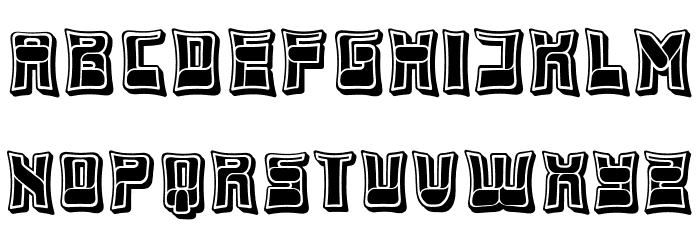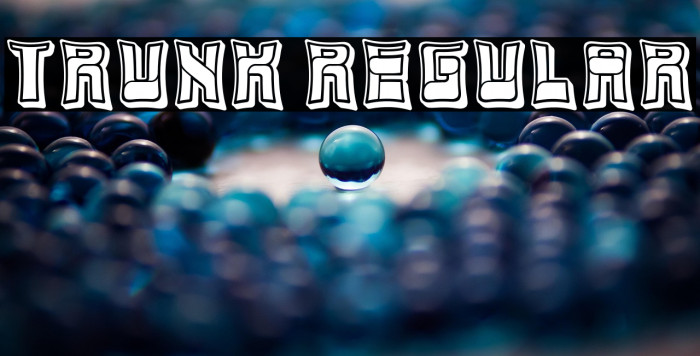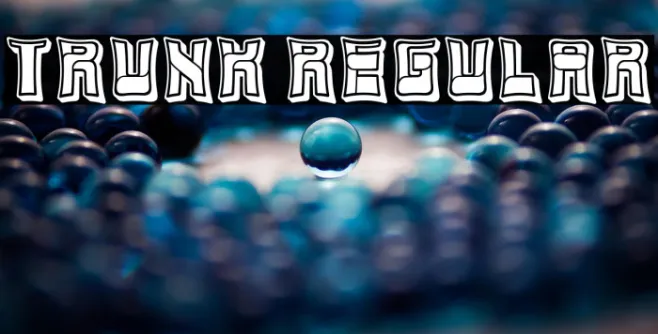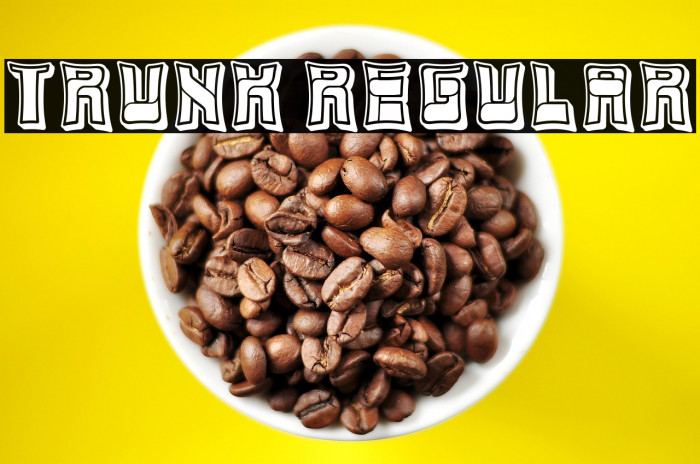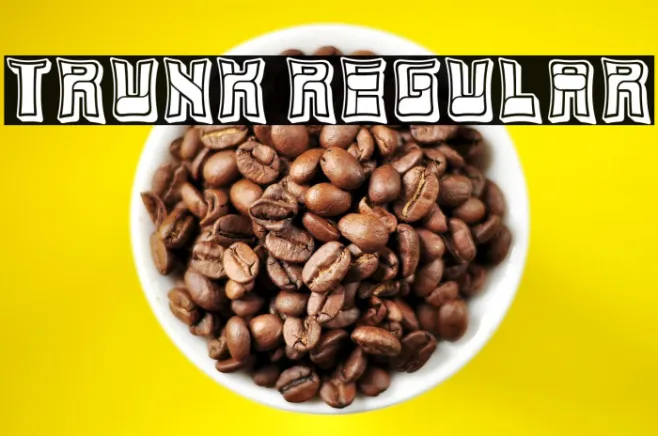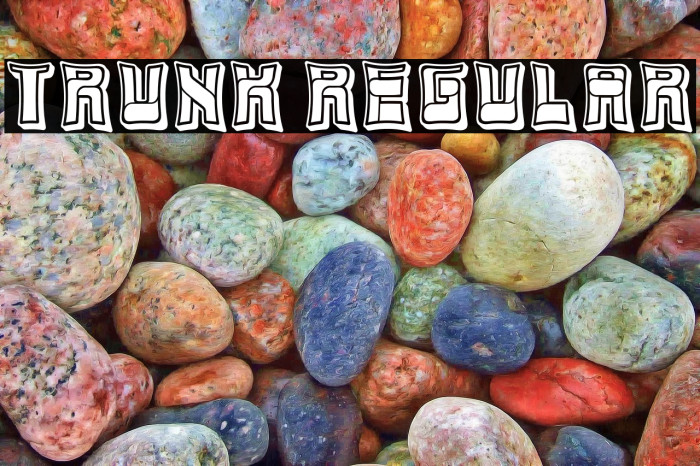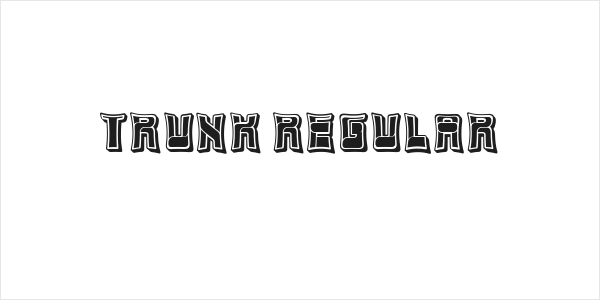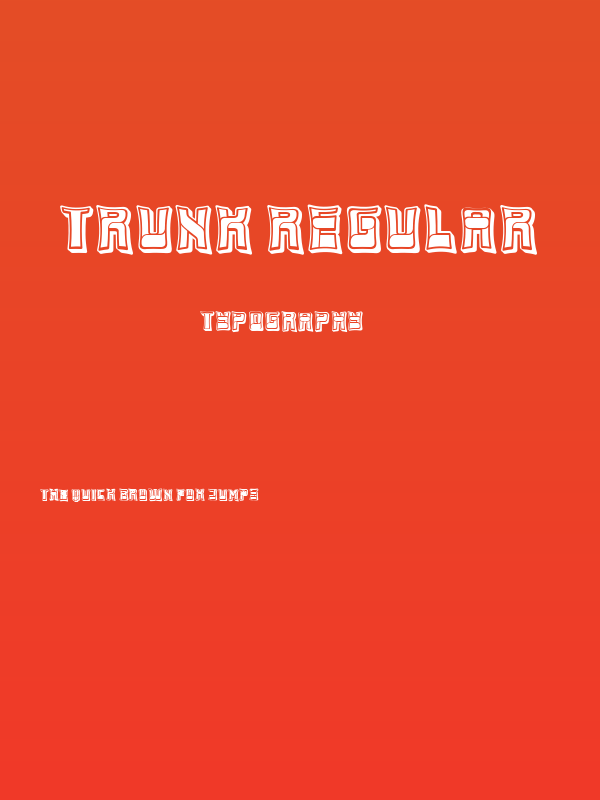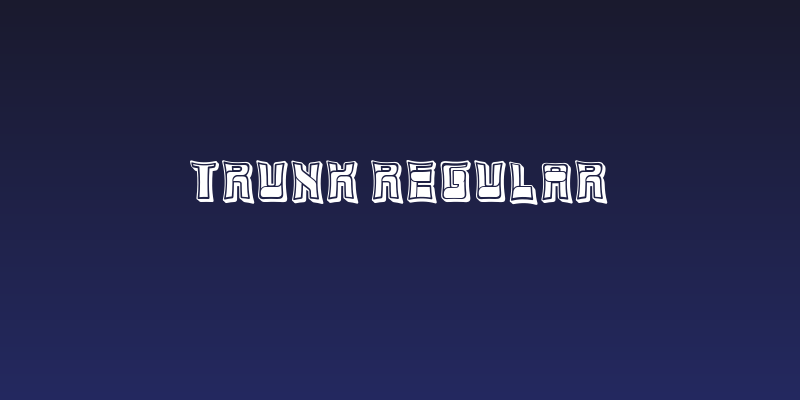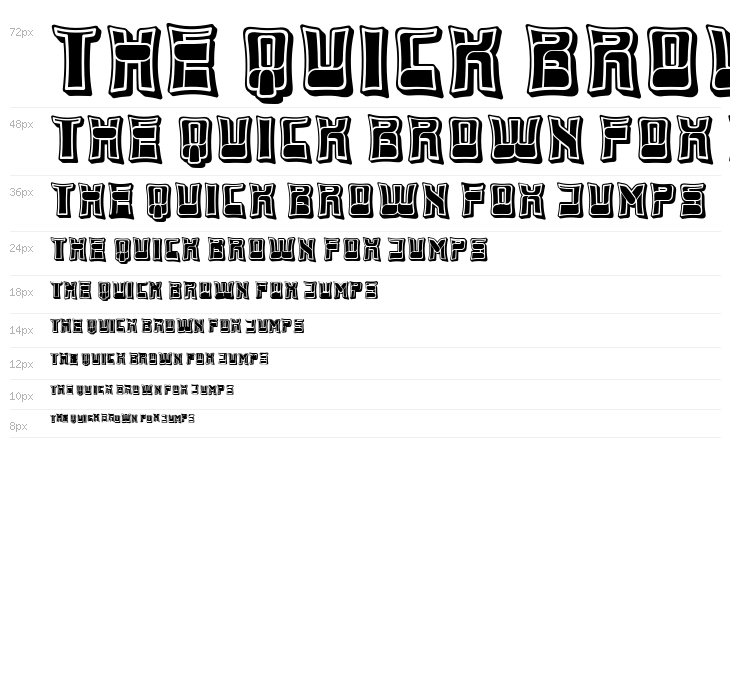
Trunk Regular Font
Trunk Regular Description
This font features a bold and striking design with a three-dimensional effect that gives each character a sense of depth and weight. The letters are outlined with a thick black border, creating a strong contrast against the white inner spaces. The geometric shapes and angular lines contribute to its modern and edgy appearance. Each character is uniquely stylized, with some featuring unexpected curves and angles, adding a playful and artistic touch. The font maintains a consistent width across all characters, ensuring a balanced and cohesive look. Its distinctive style makes it ideal for projects that require a bold and attention-grabbing typeface.
Proposed ProjectsIdeal for posters, album covers, branding, and any project needing a bold statement.